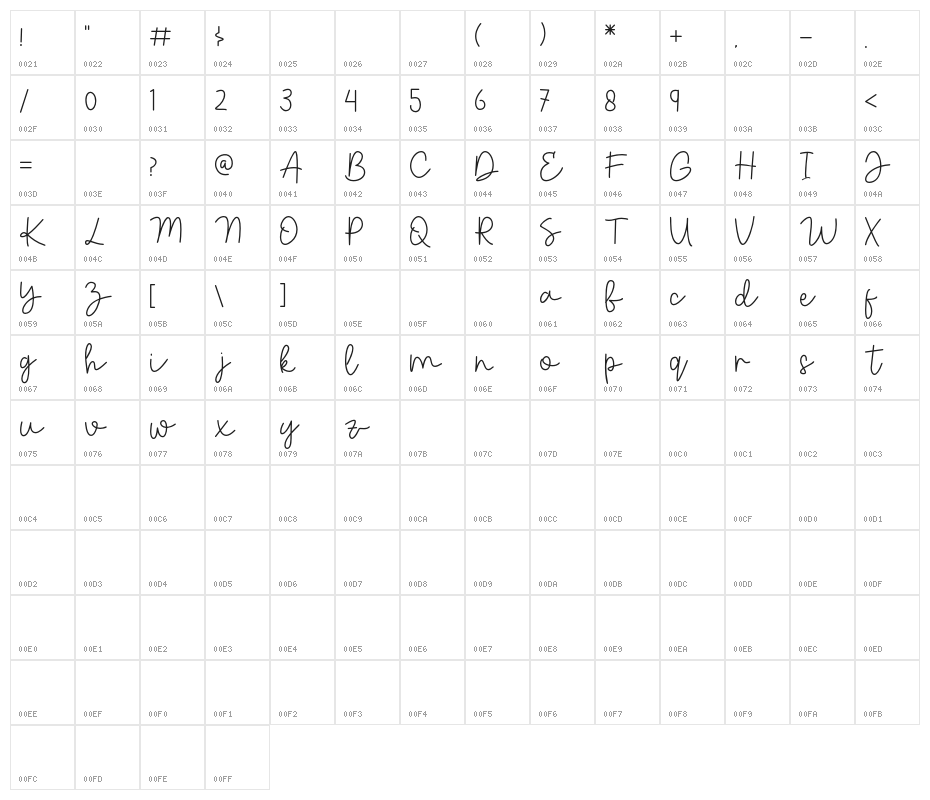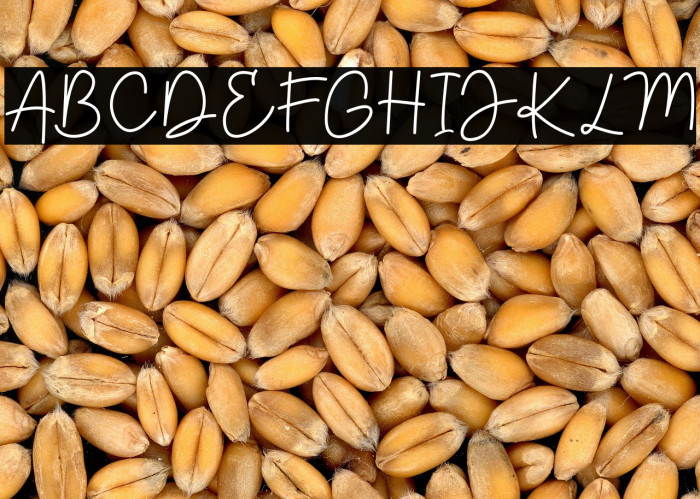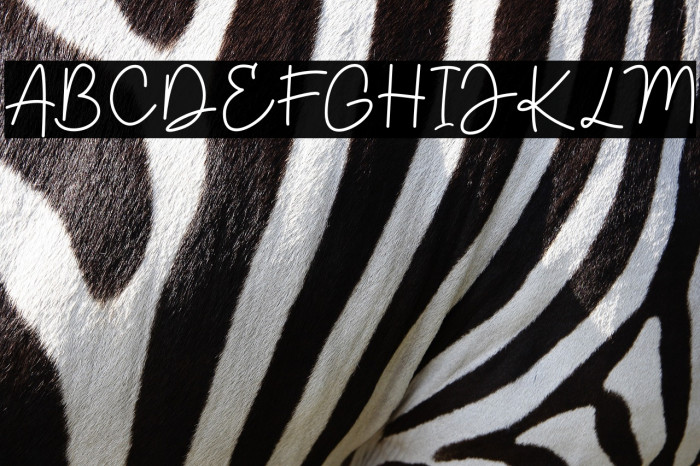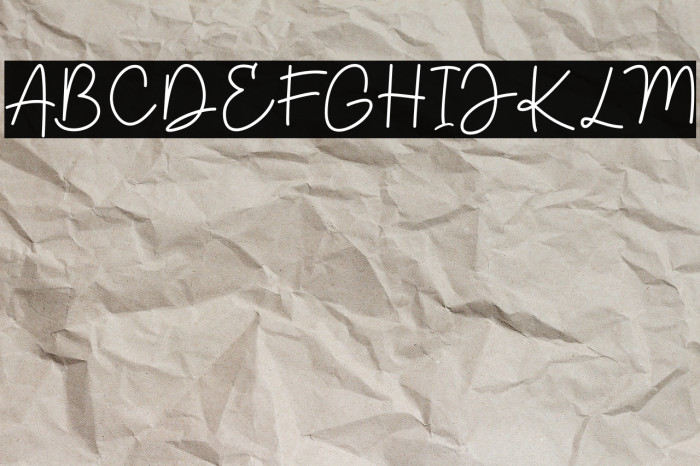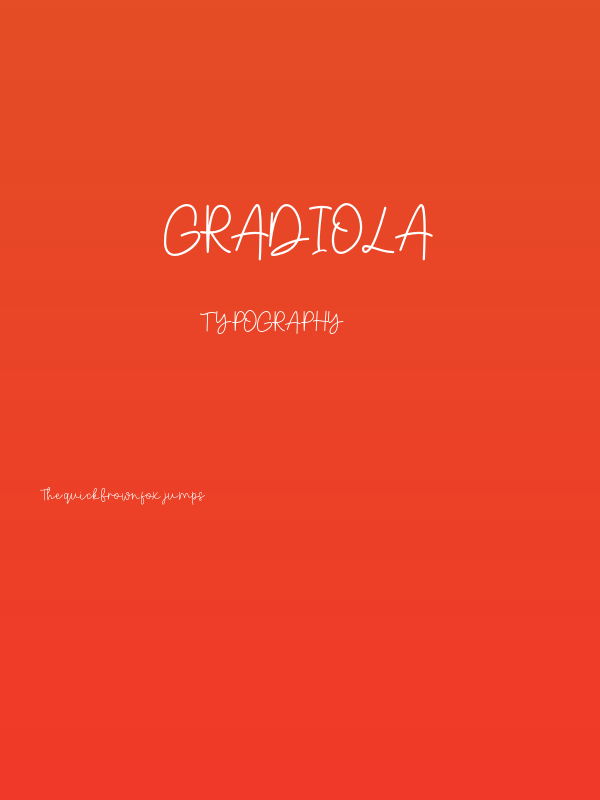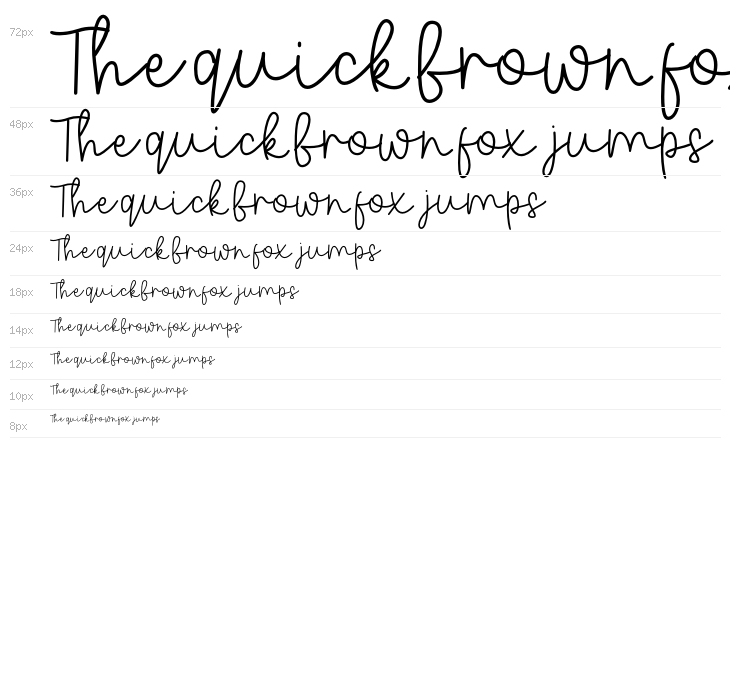
Gradiola Font
Gradiola Description
This font features a playful and casual handwritten style with smooth, flowing lines that give it a relaxed and approachable feel. The letters are connected in a cursive manner, which adds to its informal and friendly appearance. The uppercase letters maintain a consistent height, while the lowercase letters have a slight slant, enhancing the dynamic and lively character of the font. The numerals are clear and legible, matching the overall style of the alphabet. Special characters are included, maintaining the same whimsical and cohesive design. This font is perfect for projects that require a personal touch or a creative flair.
| Overall Style | Casual, Playful |
| Use Case | Logos, Invitations, Personal projects |
| Proposed Projects | Ideal for greeting cards, invitations, personal branding, and creative projects. |